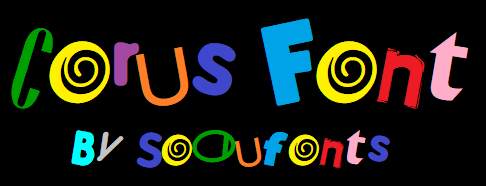
in a nutshell the corus logo actually is made up of five different fonts, which explains why (almost) every glyph is taken from some font on the interwebz. try and guess them all! (some glyphs were edited for difficulty)also, NO font is repeated twice apart from a few exceptions:
uppercase and lowercase letters (e.g. the font used for uppercase and lowercase a are the same)
any type of bracket (less and greater also count)